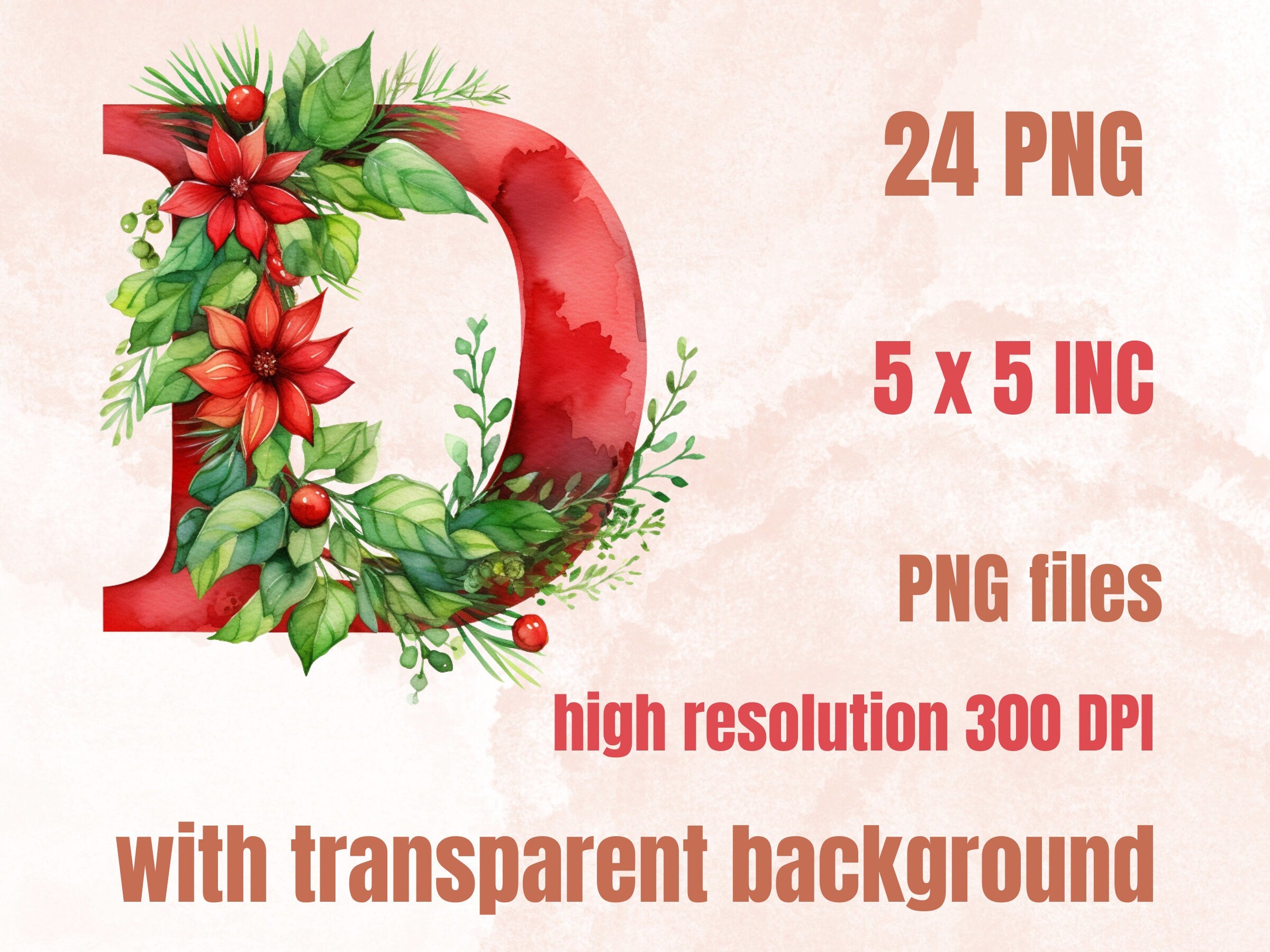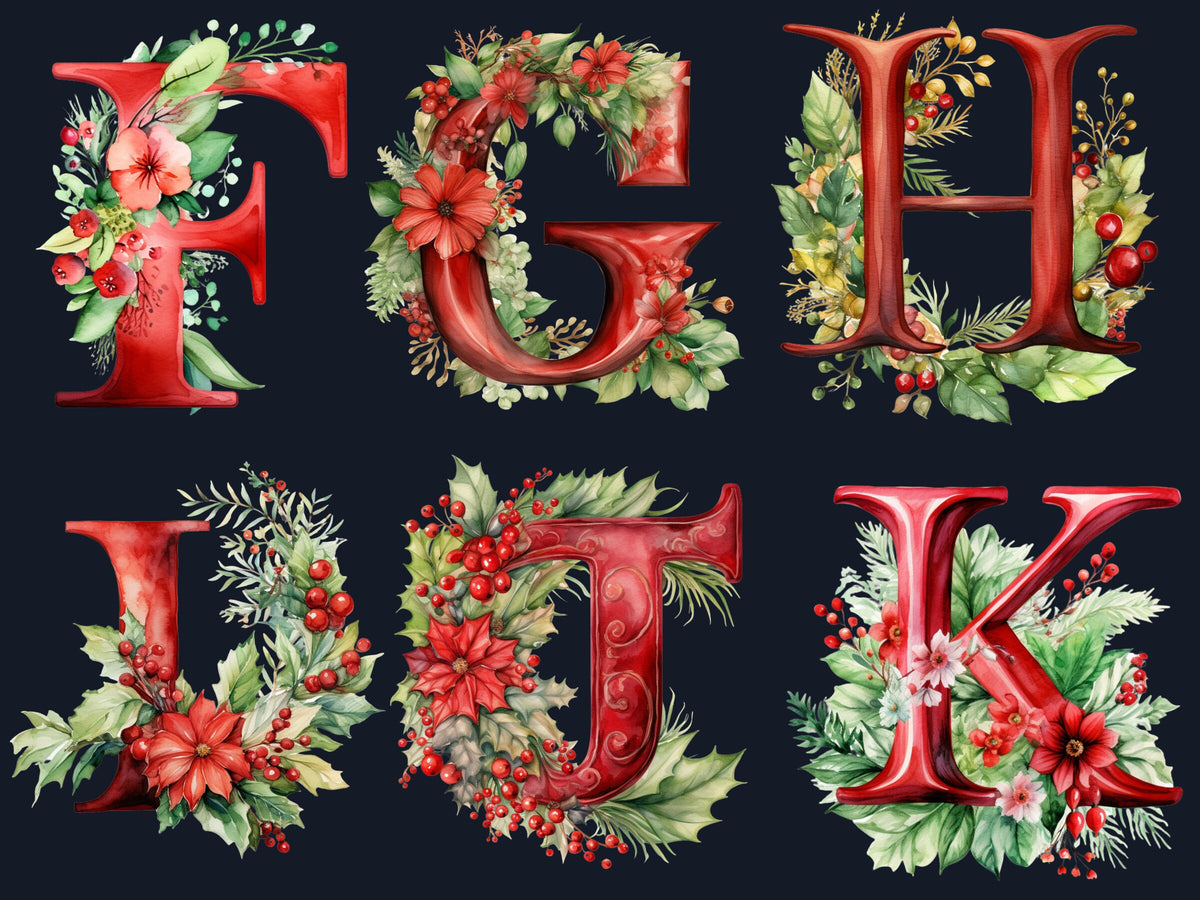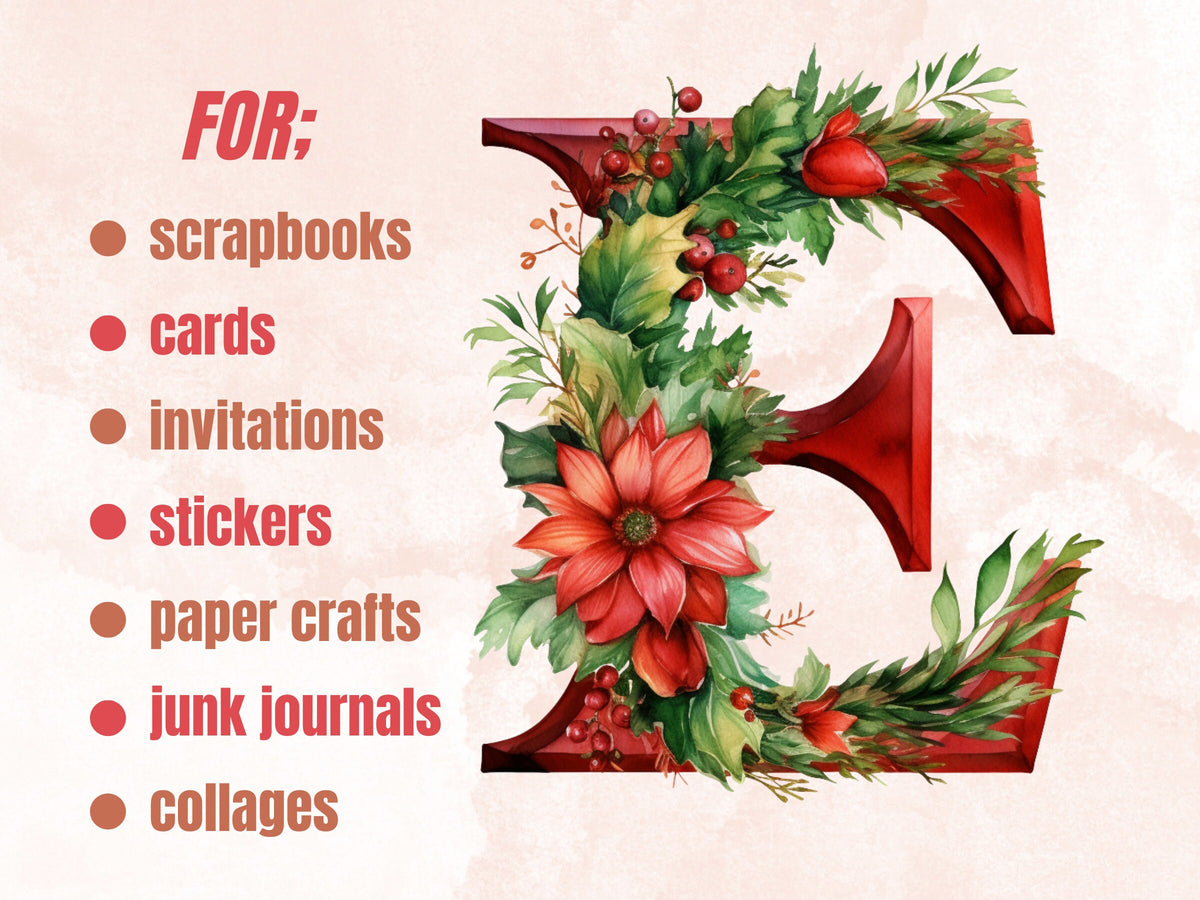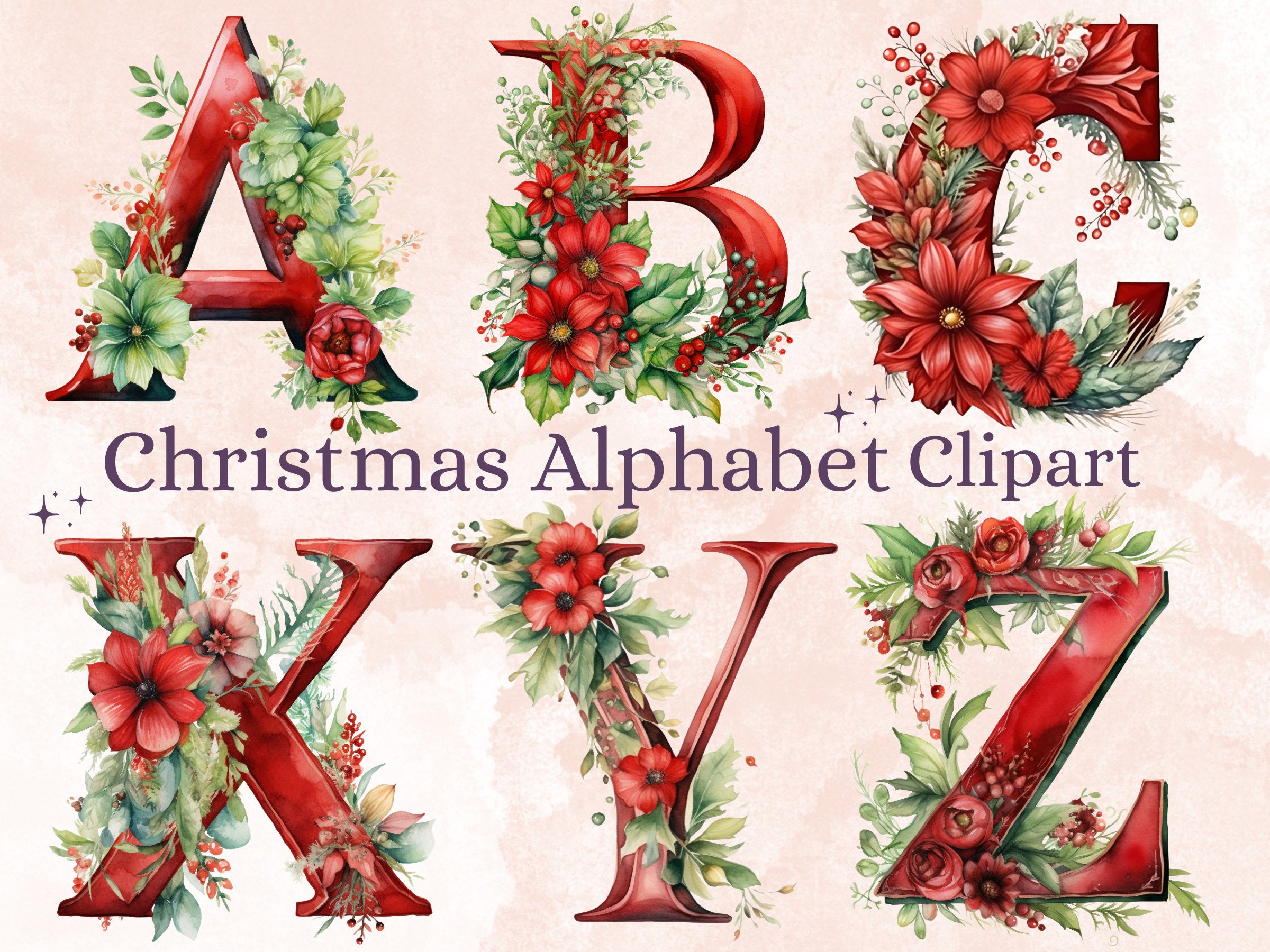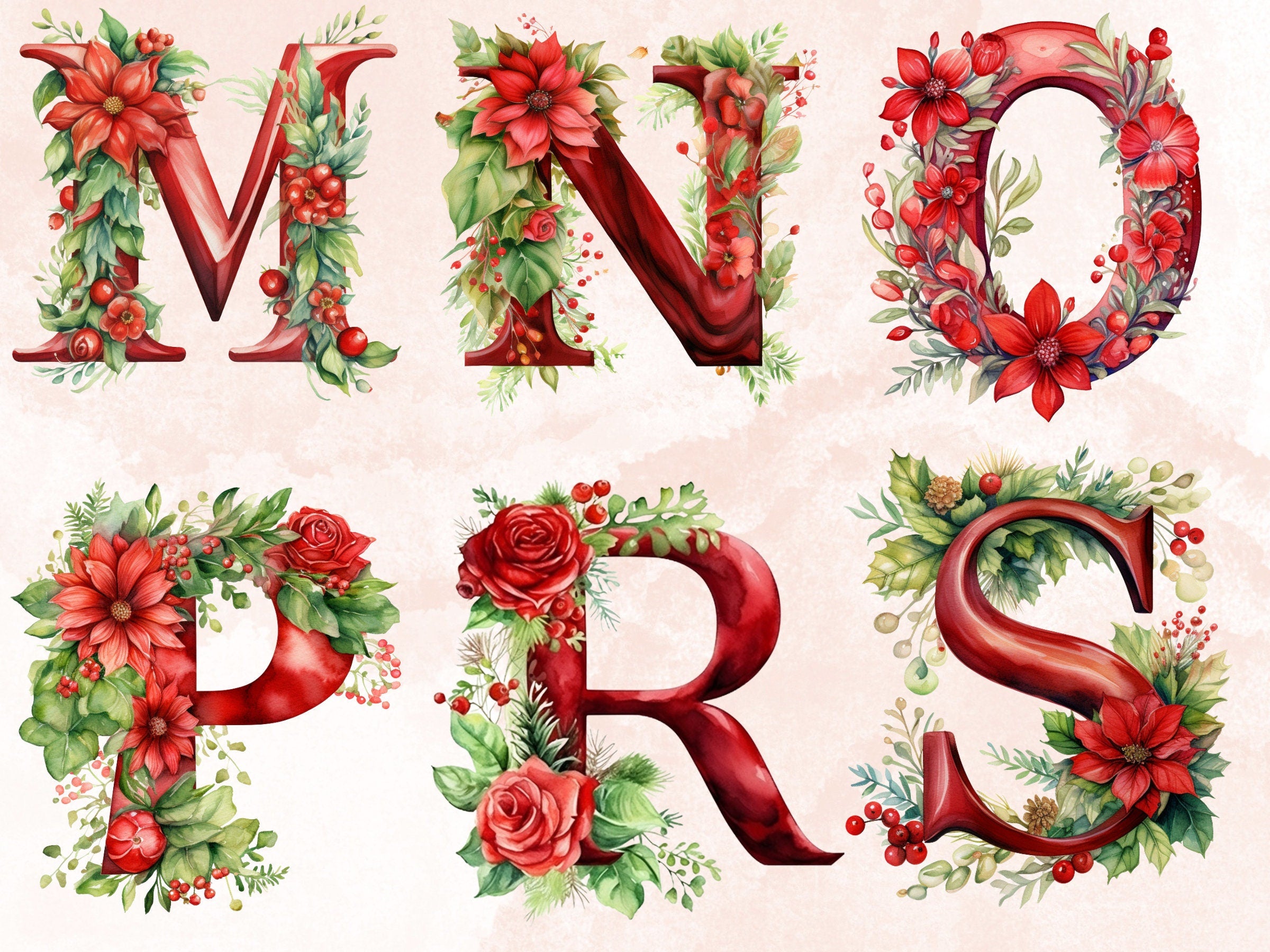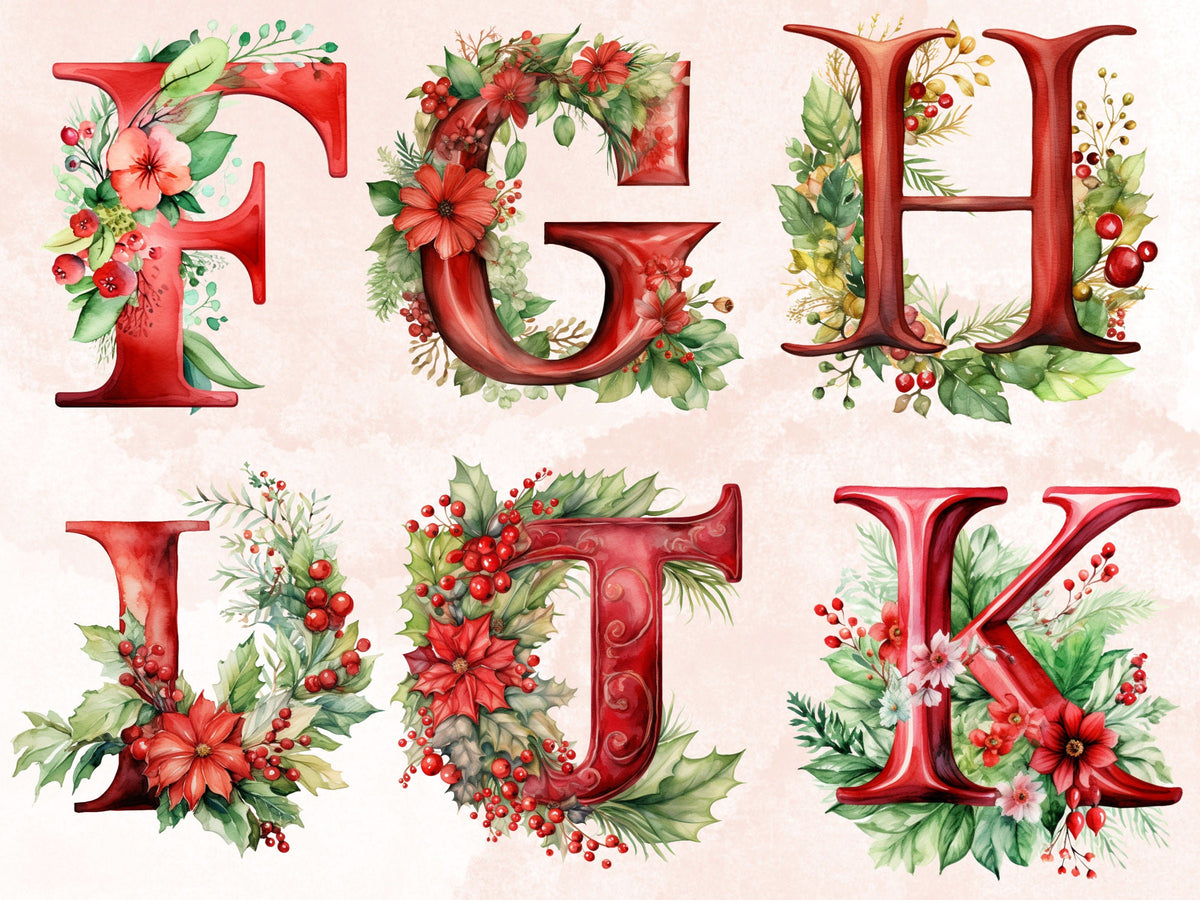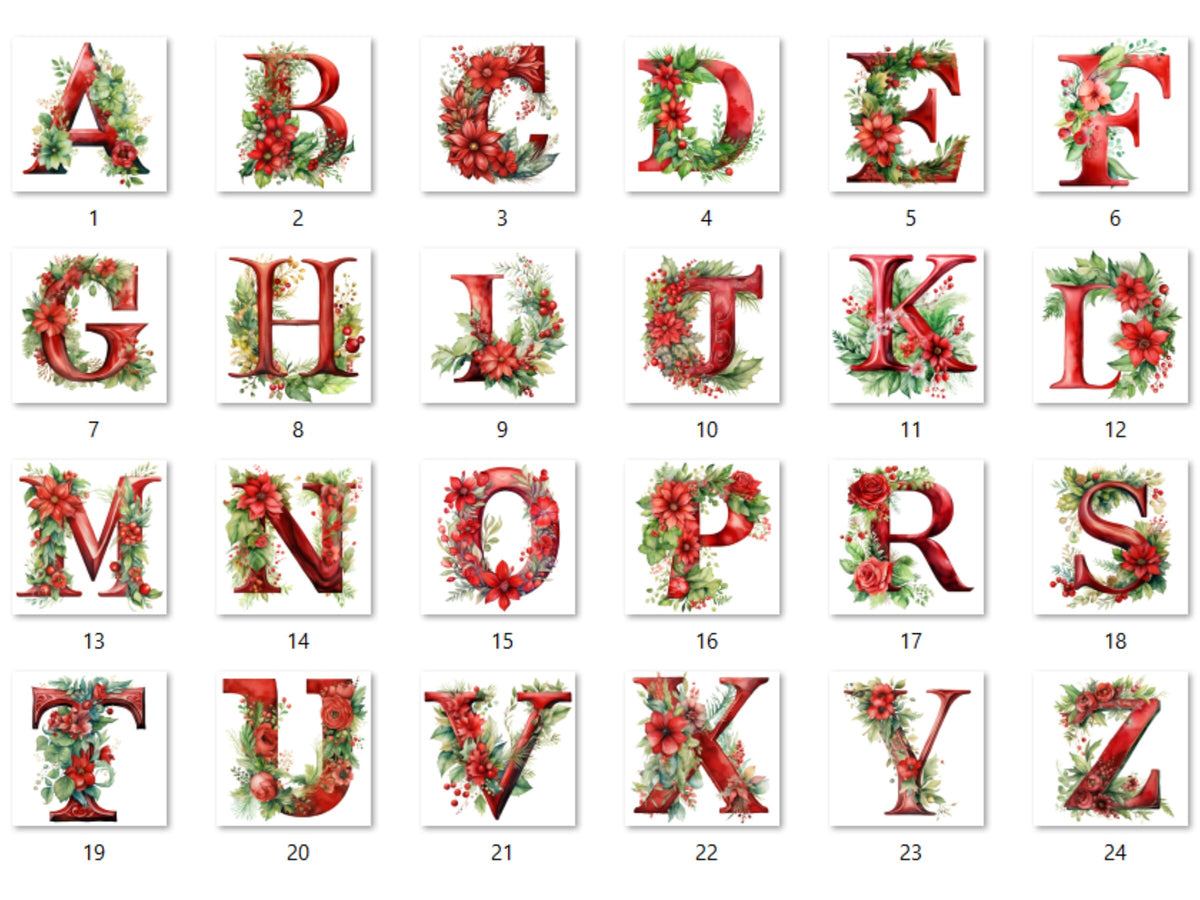
Get into the festive spirit with our delightful Watercolour Red Christmas Alphabet Clipart collection. This enchanting set features Christmas-themed alphabet characters and designs infused with the warmth of red florals and a touch of fantasy. Let the holiday cheer, floral accents, and whimsical details add a magical touch to your Christmas creations! πŸŽ…πŸŽ„πŸŽπŸŒΉβœ¨πŸŒŸ
Each letter of the alphabet in our Watercolour Red Christmas Alphabet Clipart is handcrafted with love and care. The vibrant red color symbolizes the joy and excitement of the holiday season, while the floral elements evoke a sense of beauty and elegance. These charming designs will bring a festive flair to your projects and capture the spirit of Christmas in a whimsical way! πŸŽ…πŸŽ„πŸŽπŸŒΉβœ¨πŸŒŸ
Unleash your creativity and spread the holiday cheer with our Watercolour Red Christmas Alphabet Clipart. These versatile elements can be used in a variety of Christmas-themed projects, including greeting cards, invitations, gift tags, scrapbooking, home decor, digital designs, and more. Let these captivating alphabet characters become the focal point of your holiday creations and add a touch of enchantment to your festive designs! πŸŽ…πŸŽ„πŸŽπŸŒΉβœ¨πŸŒŸ
Capture the attention of your audience with our Watercolour Red Christmas Alphabet Clipart. These charming illustrations are perfect for creating eye-catching social media posts, festive blog headers, Christmas-themed logos, and other visual content that needs a dash of holiday magic. Let the vibrant red hues and whimsical alphabet characters bring joy and excitement to your digital presence. πŸŽ…πŸŽ„πŸŽπŸŒΉβœ¨πŸŒŸ
Invite the magic of our Watercolour Red Christmas Alphabet Clipart into your holiday projects and let your creativity shine. With these whimsical designs, you can create personalized Christmas greetings, unique gift tags, and captivating decorations that will make this holiday season truly special. Spread the joy and warmth of Christmas with every letter! πŸŽ…πŸŽ„πŸŽπŸŒΉβœ¨πŸŒŸ